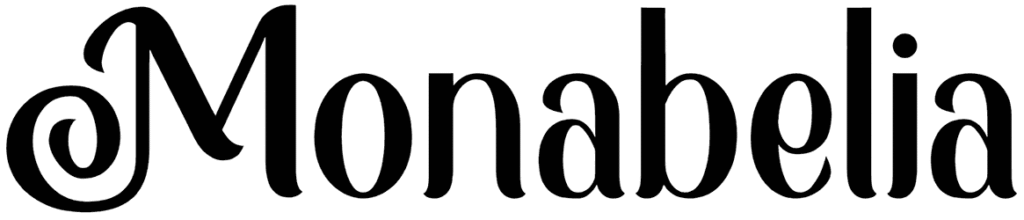
Monabelia Font
There is no denying that designs executed using Monabelia have a certain pizzazz that will never bore you. This magazine font imitates natural handwriting and can level up your text on posters, stationery, wedding accessories, and invitations. So if you want your projects to turn into glamorous artwork with a stunning look, this contemporary handwritten font is the smartest choice for you.